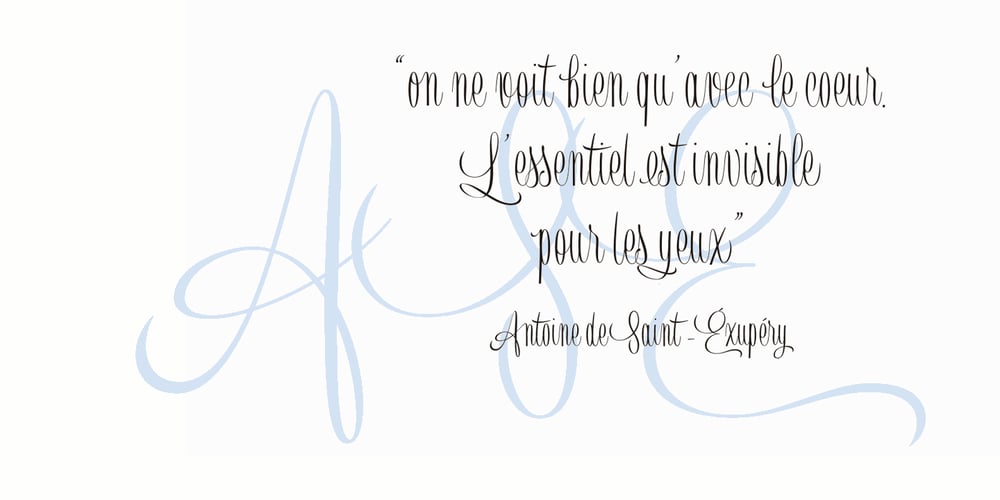
Beauville Script Font Family was designed by Carine de Wandeleer and published by Eurotypo. Beauville Script contains 1 styles and family package options. Beauville Script is a handmade pen font with a touch of comfortable elegance, inspired by the script headings of the 40s and 50s. Beauville is an upright, condensed and soft vintage script with a modern and contemporary twist. Its main characteristics are the bouncy baseline, round forms and bumpy stems. These qualities give Beauville it’s casual, friendly look and makes reference to traditional fluent handwriting. Beauville font is equipped with contextual and stylistic alternatives, swash alternatives and ligatures to create more authentic and varied connections between the letters. It has a Central European language support to fit your design. Beauville Script works perfectly in greeting cards, invitations, weddings, posters, magazines, fashion world, branding & logos, packaging, etc. It is friendly and lovable, fresh and fun to work with.